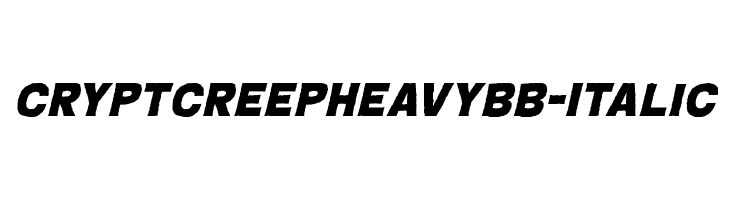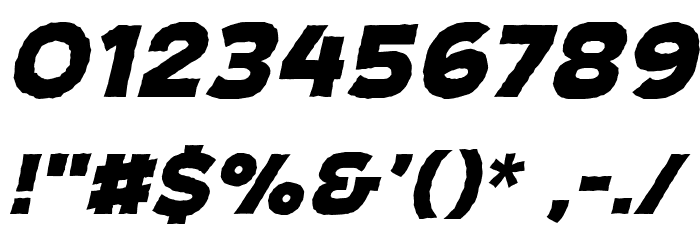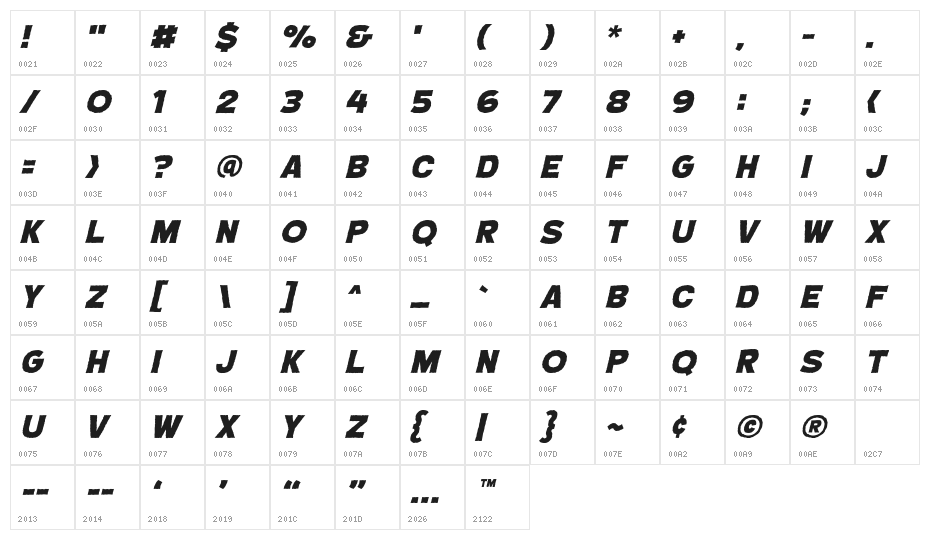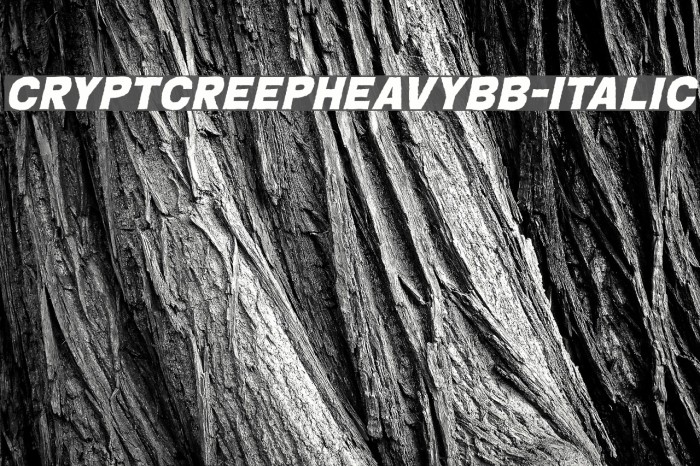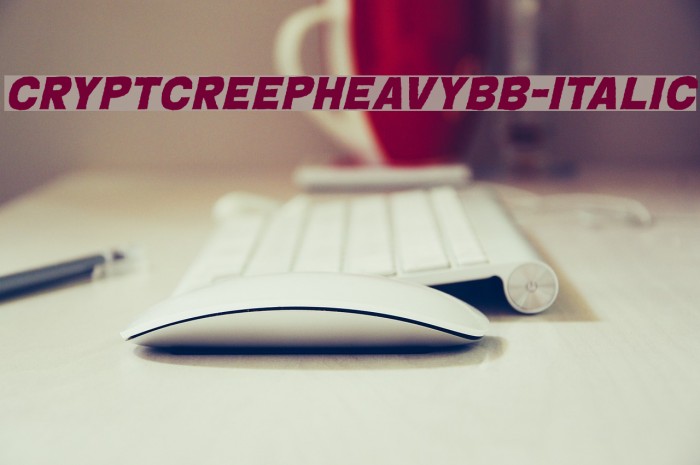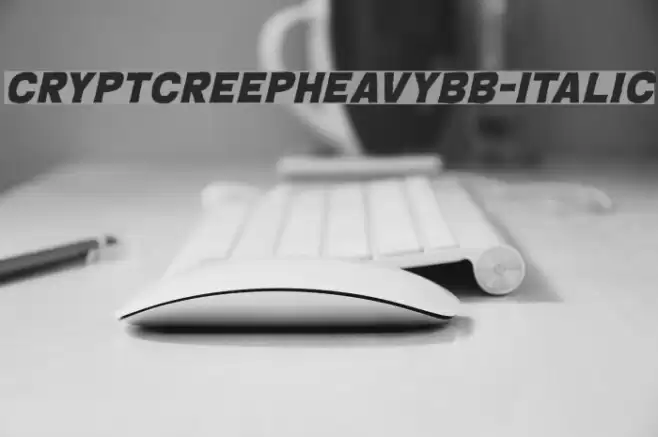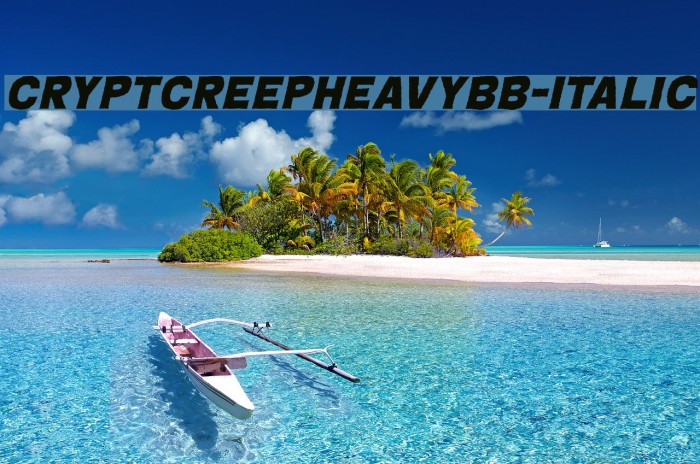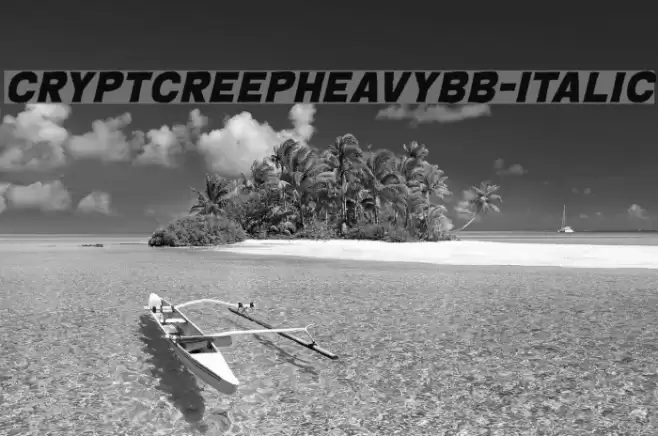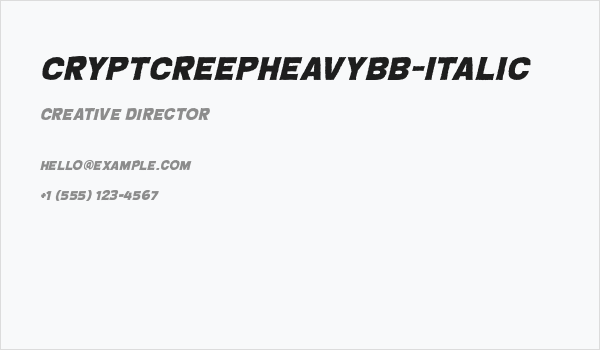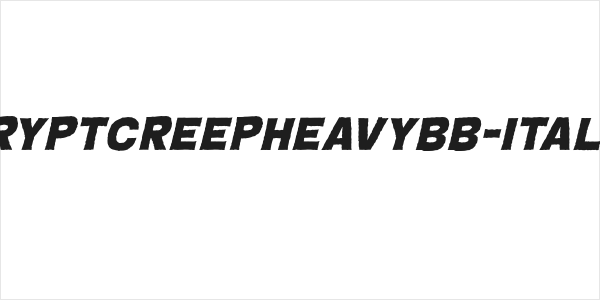
CryptCreepHeavyBB-Italic Font
CryptCreepHeavyBB-Italic Description
This font features a bold and heavy style with a distinct italic slant, giving it a dynamic and energetic appearance. The characters are robust and thick, providing a strong visual impact. The uppercase and lowercase letters maintain a consistent weight, ensuring readability while conveying a sense of urgency and movement. The numbers and special characters are designed to match the boldness of the letters, making them suitable for attention-grabbing designs. The overall style is modern and slightly aggressive, perfect for projects that require a bold statement.
| Overall Style | Modern, Dynamic |
| Proposed Projects | Ideal for headlines, posters, branding, and any design requiring a strong, impactful presence. |